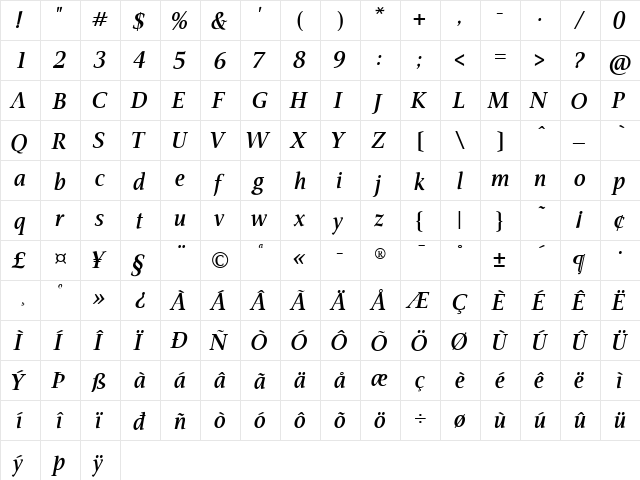
AIVeritas SemiBold Font Preview
AIVeritas SemiBold
AIVeritas SemiBold Font Details
| Style | SemiBold |
| Foundry | \ A*I Veritas\ -SemiBoldItalic by Brian Sooy |
Design Context for AIVeritas Typeface
AIVeritas takes a measured approach to typography — its balanced proportions and neutral character make it a reliable workhorse for both digital and print work. Its bold stroke weight gives it real presence on the page.